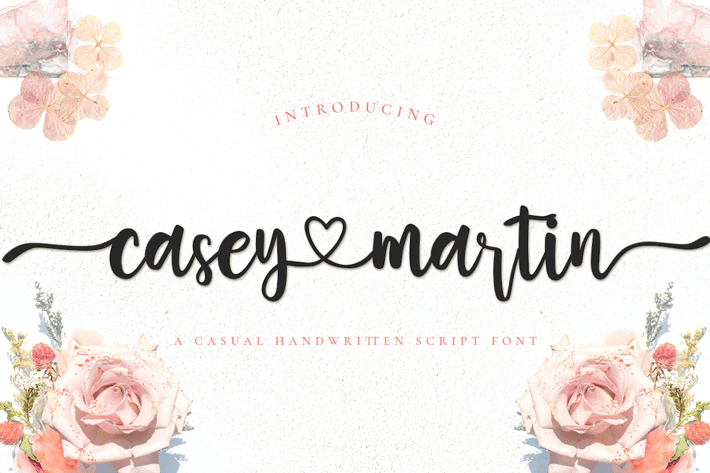
Casey Martin - Casual Handwritten Script Font
Casey Martin script is perfect font pairing with tails alternates character.
Casey Martin script is a modern hand lettering script. It's allowing you to create beautiful hand-made typography
in an instant.
Casey Martin script perfect to use for any kind of design such as branding projects,
logo, brochures, business card, wedding designs, social media posts, advertisements, product packaging,
product designs, label, photography, watermark, invitation, brand company, stationery and any
projects that need handwriting taste.
+ Multilingual Support
+ with Regular style
+ with Swash